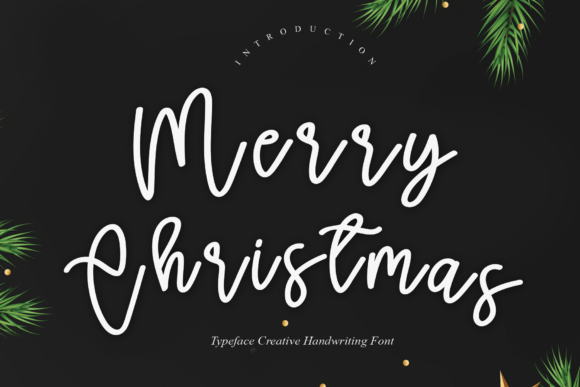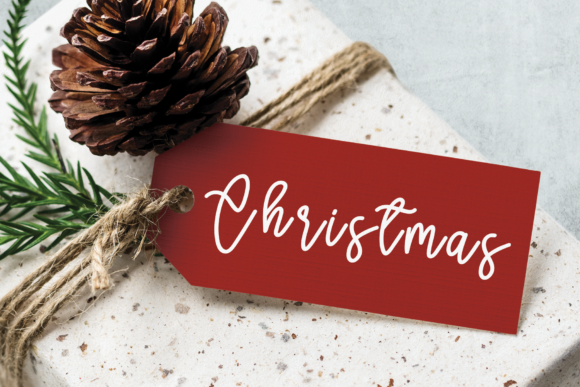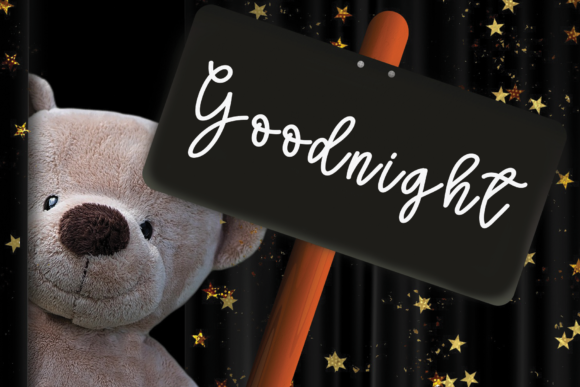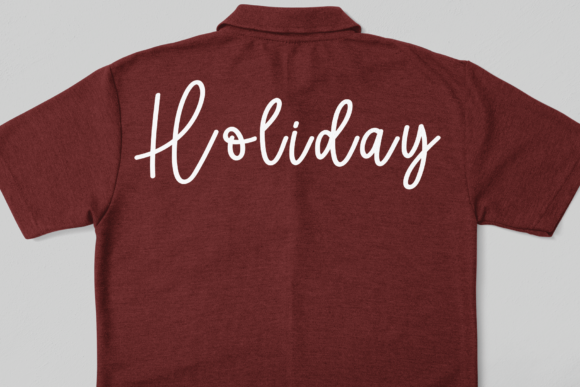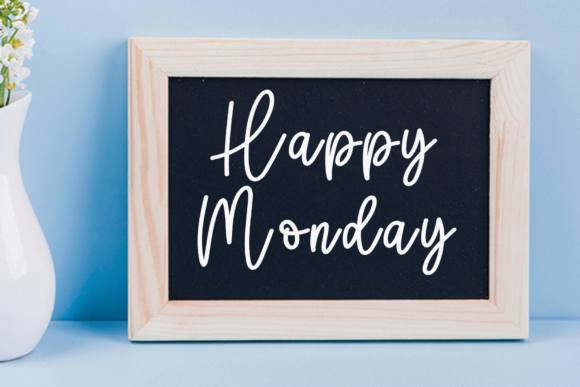
Merry Christmas Font
About Merry Christmas Font
Merry Christmas is an exquisite handwritten font, masterfully designed to become a true favorite. It maintains its classy calligraphic influences while feeling contemporary and fresh. Fall in love with it and bring your projects to the highest levels!